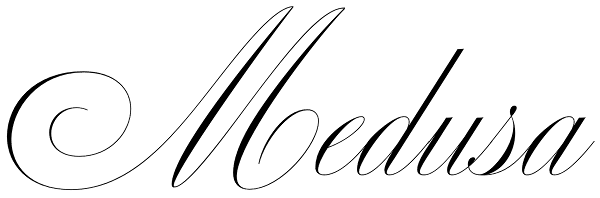
Medusa
Medusa is Ramiro Espinoza’s homage to 19th Century Catalonian pointed pen calligraphy. The starting-off point in the creation of the typeface was an analysis of the historical models of formal English handwriting and the ways in which those styles...